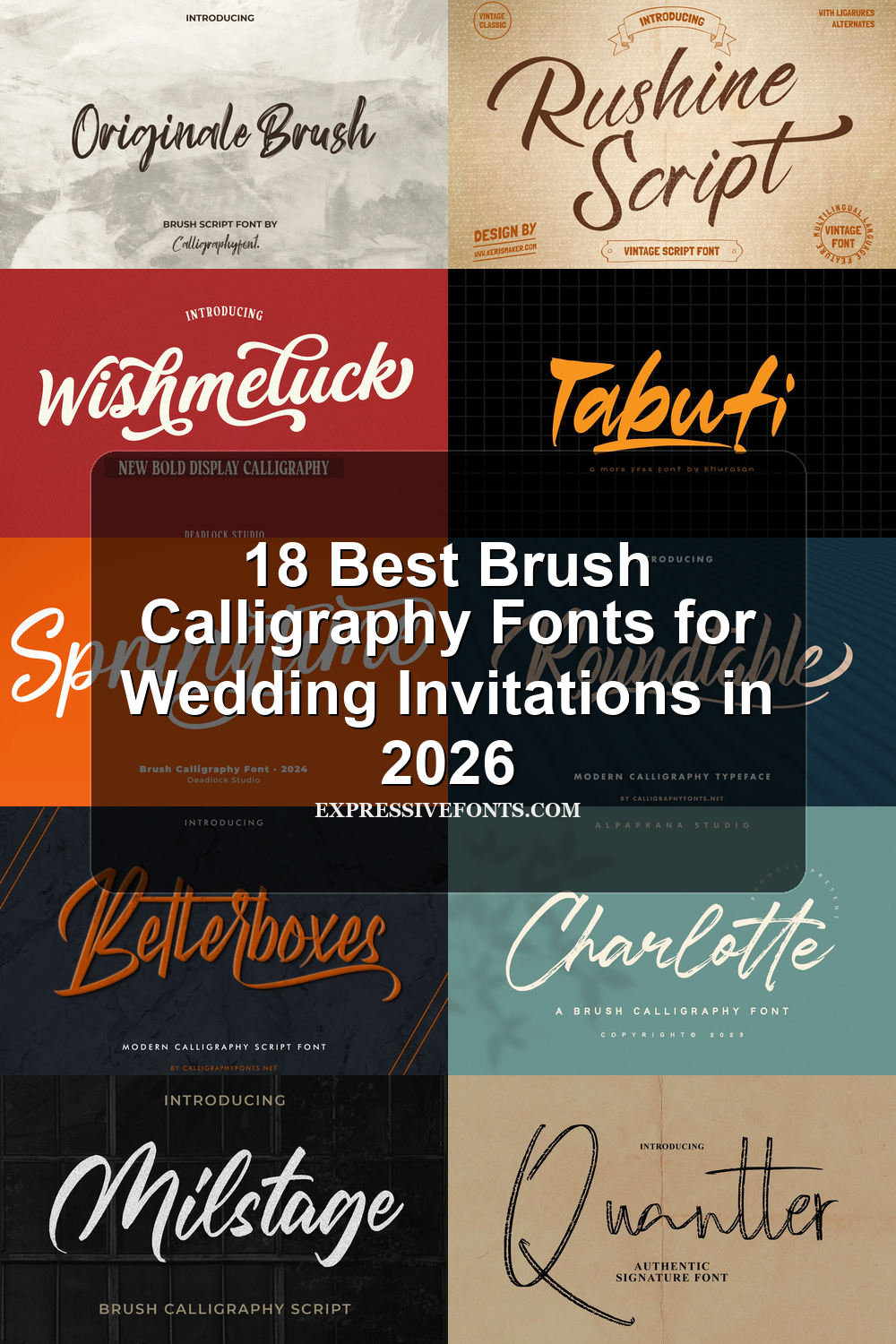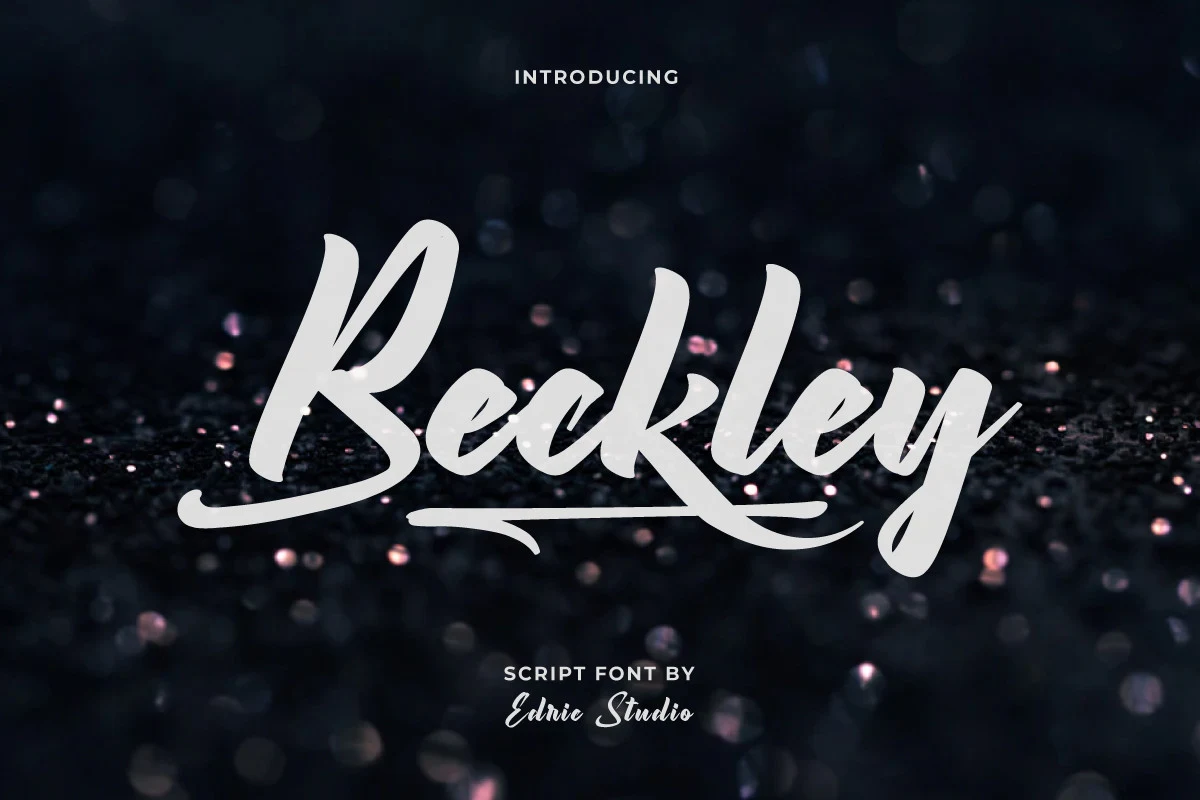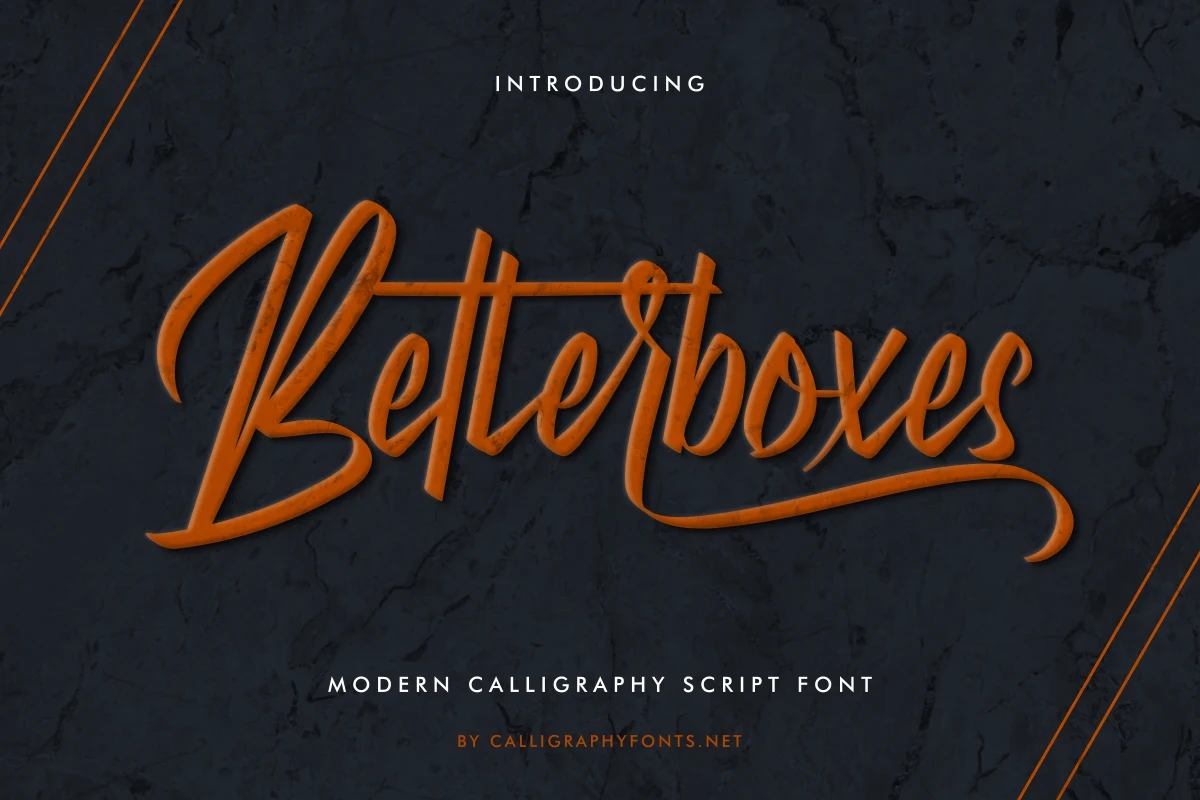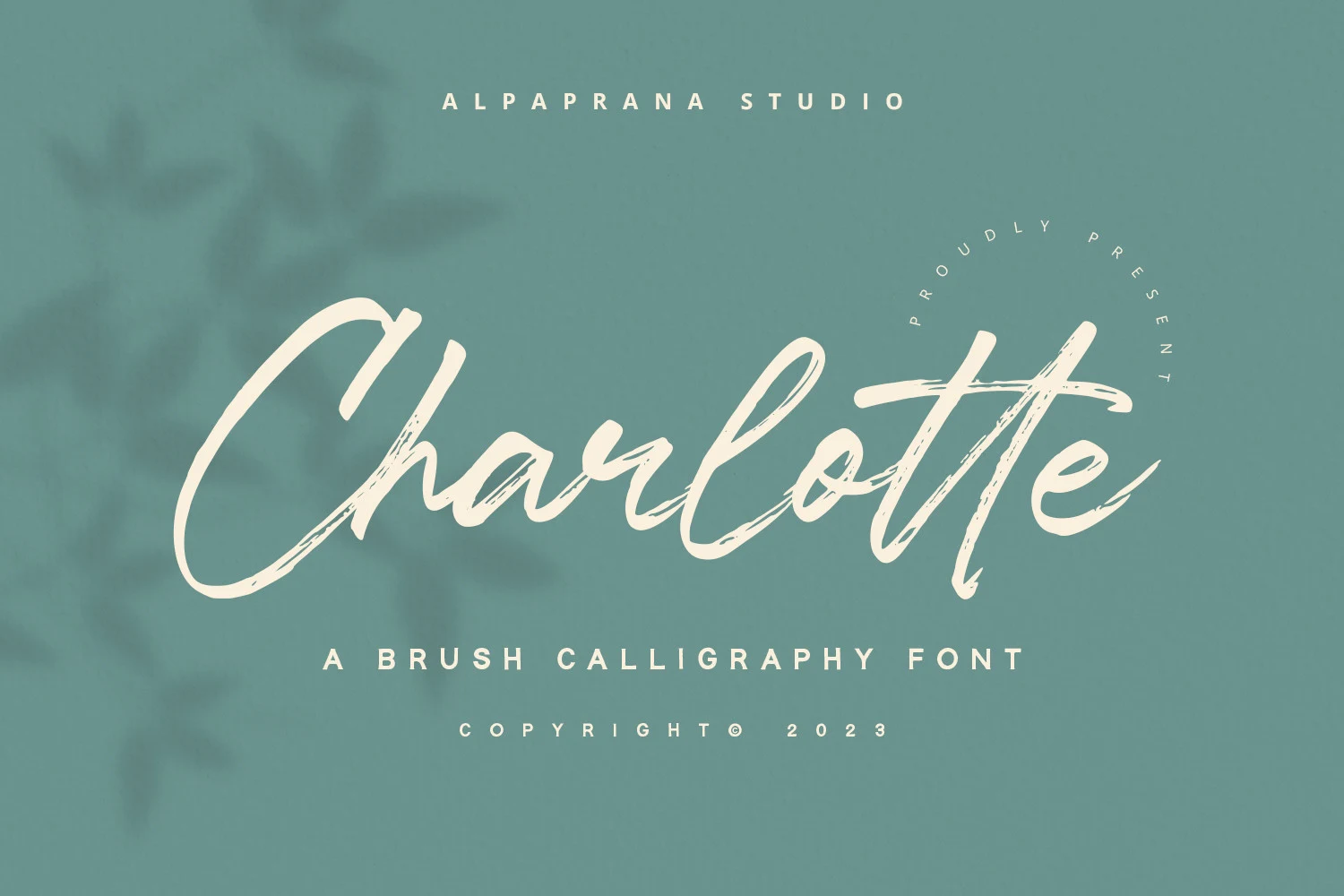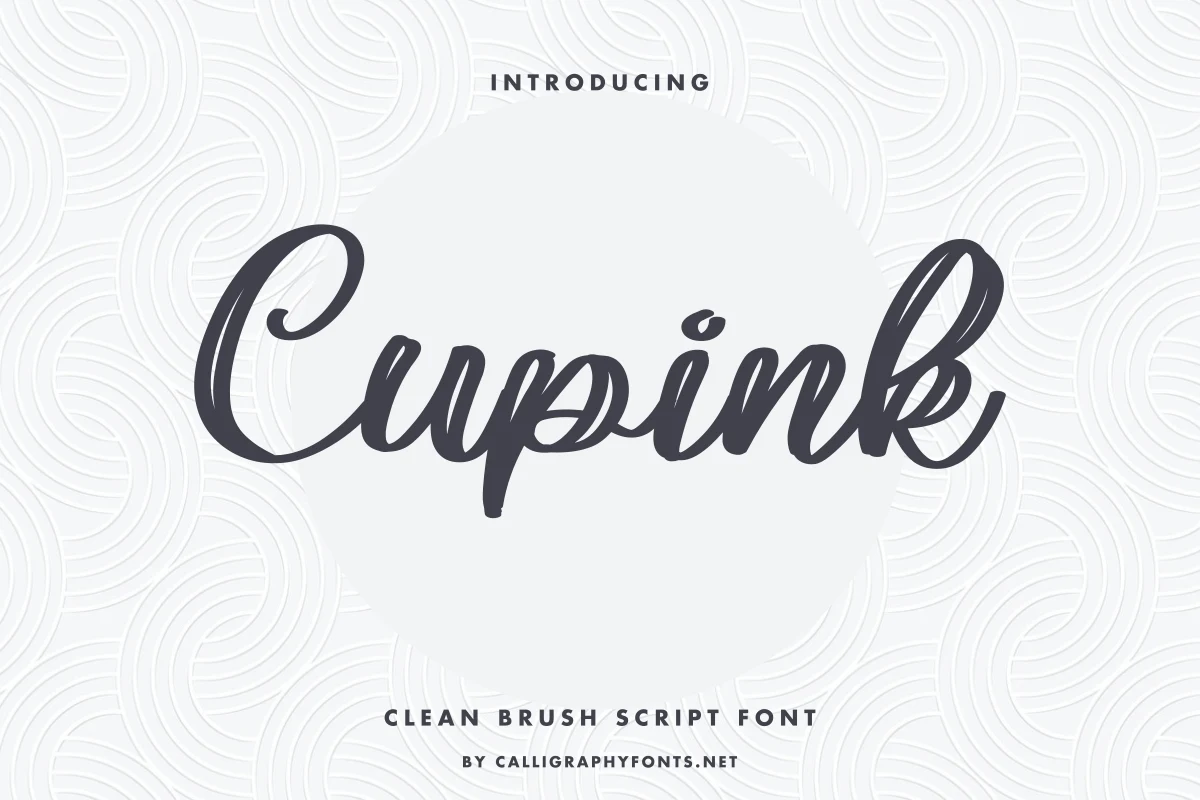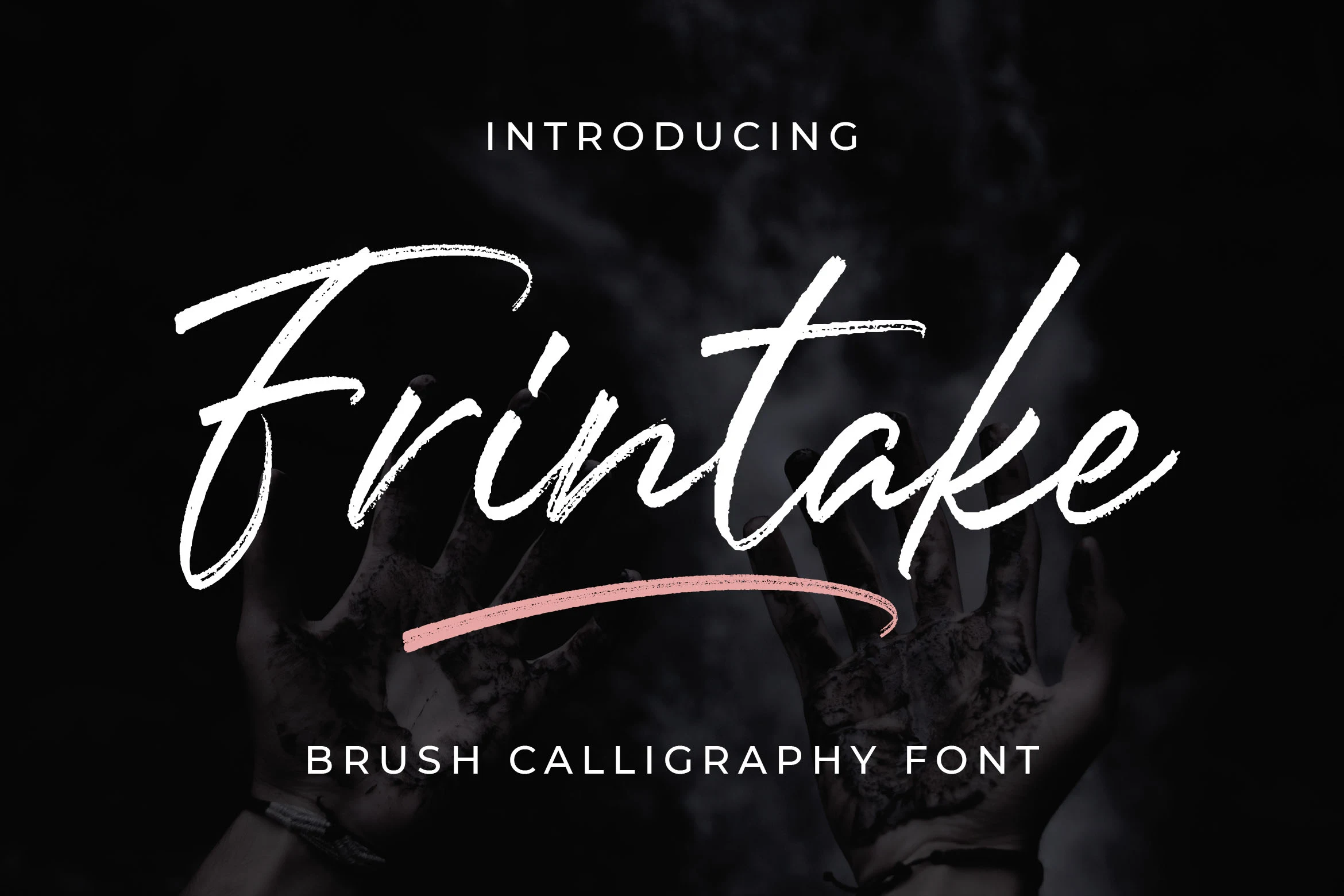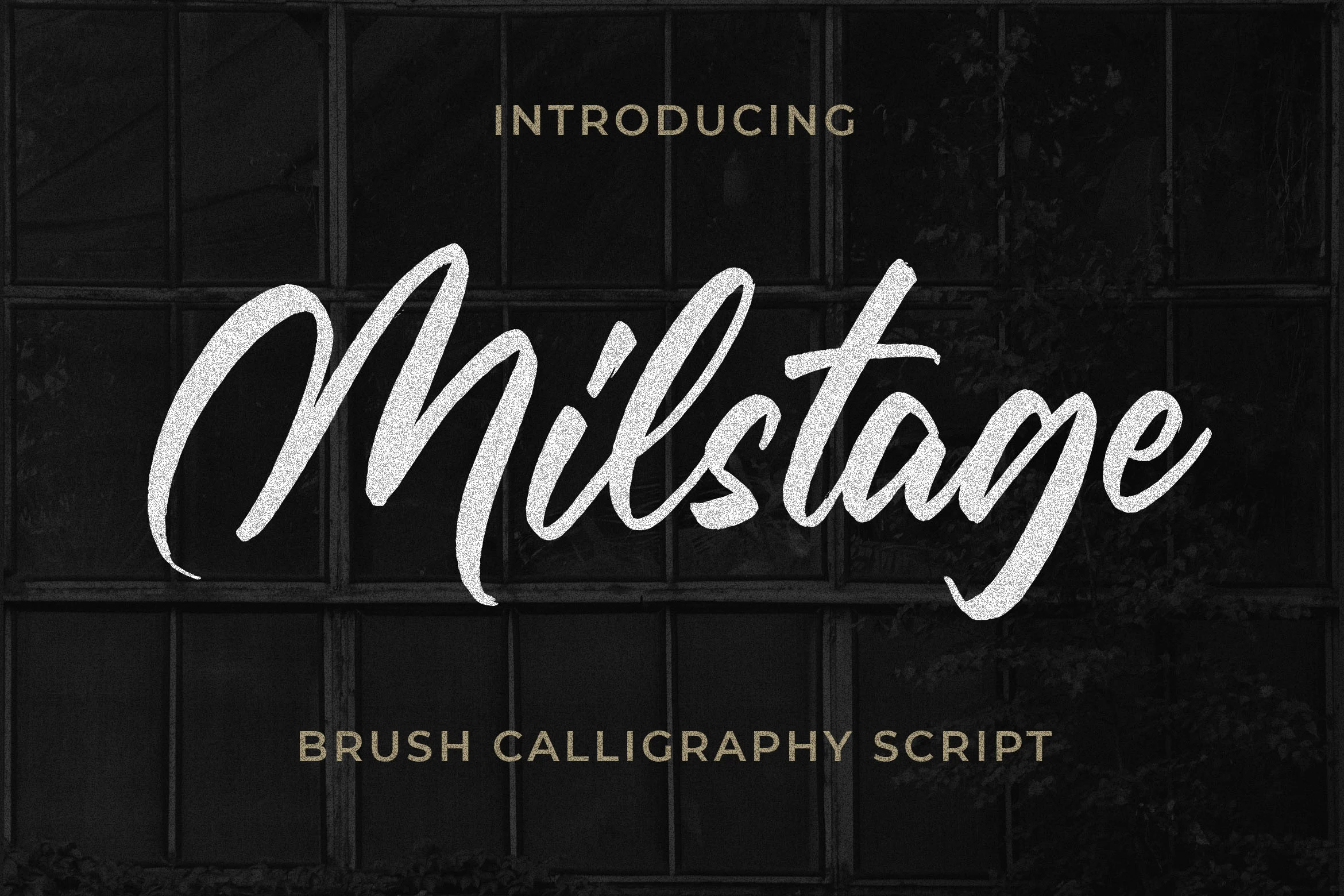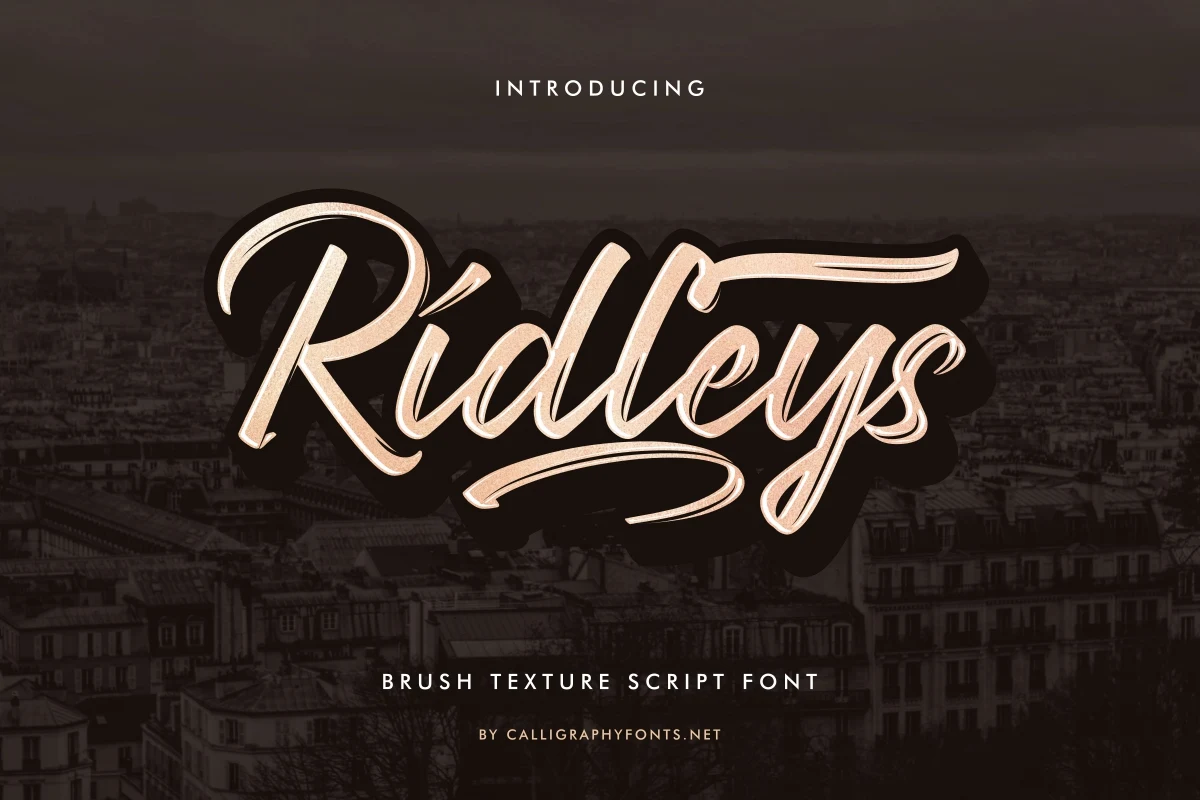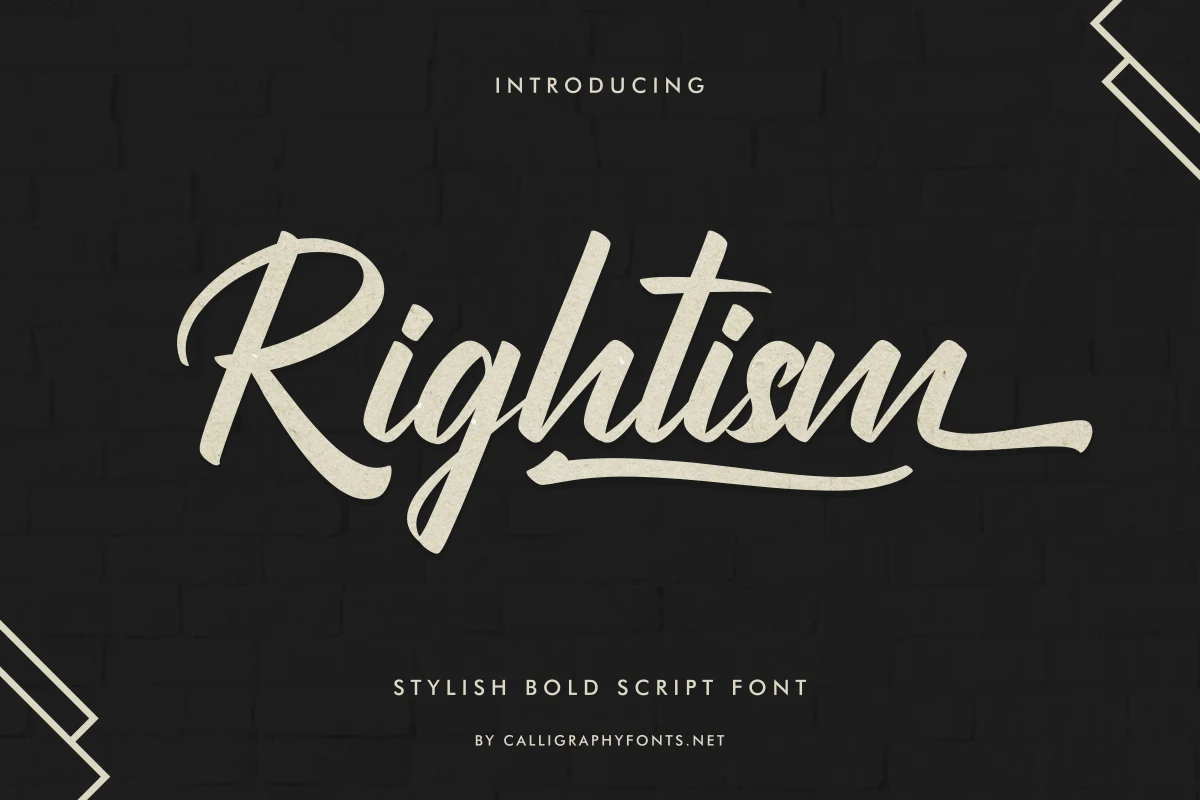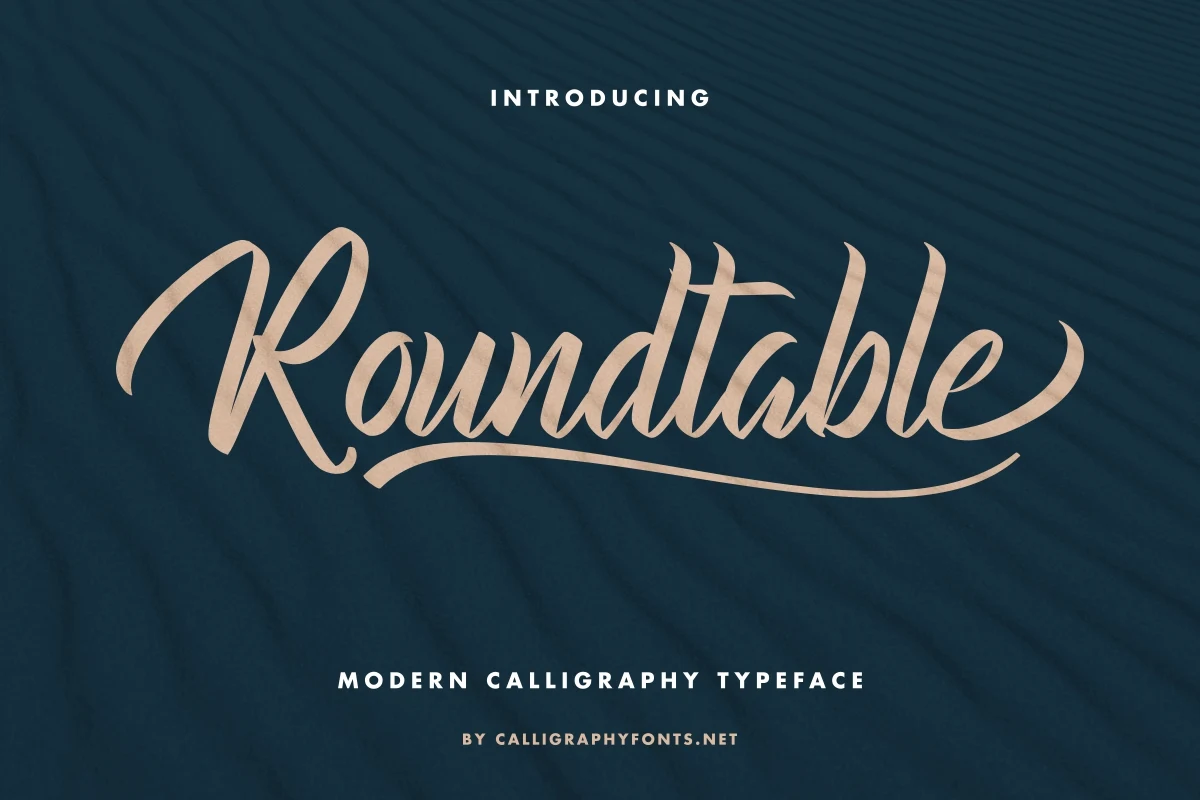
18 Best Brush Calligraphy Fonts for Wedding Invitations in 2026
This collection of Brush Calligraphy Fonts ranges from polished, high-contrast lettering with sweeping flourishes to gritty, dry-brushed scripts and dense, energetic display styles. Together, they suit logos, packaging, invitations, posters, social graphics, headlines, and other short-form designs where visible stroke character matters.
Brush Calligraphy Fonts: Flourished Elegance
These Brush Calligraphy Fonts emphasize controlled slants, dramatic contrast, pointed terminals, and ornamental swashes, giving them a more formal, decorative role than the rougher or heavier groups.
Advantageous Font
Advantageous Font featuring connected cursive letters, high stroke contrast, a strong rightward slant, and a decorative horizontal swash.
Advantageous Font pairs high thick-to-thin contrast with connected, right-leaning curls and a pronounced horizontal swash underline. Its intricate construction is better reserved for short headers, business cards, packaging, and covers than continuous reading.
Roundtable Font
Roundtable Font displaying connected, high-contrast script letterforms with flowing swashes and a pronounced slant.
Roundtable Font separates itself with pointed pen-style terminals, flowing connected letters, and pronounced flourishes rather than rounded endings. Its high contrast works well for large branding, signage, and business cards, while small applications quickly become difficult to decipher.
Ovelyned Font
Ovelyned Font features connected high-contrast calligraphic letters with a rightward slant, sweeping swashes, and decorative star accents.
Ovelyned Font suits invitations and packaging when you want Brush Calligraphy Fonts with a formal, decorative finish. Dramatic contrast, sweeping swashes, and star accents add detail to large marks, logos, and social graphics, but restrict comfortable small-scale reading.
Artemil Font
Artemil Font featuring connected cursive strokes, high contrast, and sweeping ornamental flourishes.
Artemil Font tempers ornate, right-slanting connections with a stable baseline, giving its flowing letterforms more control than an irregular script. Pronounced swashes still call for display sizing, making it a strong choice for logos, invitations, packaging, and social graphics.
Betterboxes Font
Betterboxes Font features high-contrast connected cursive letters, a pronounced rightward slant, and extended decorative swashes.
Betterboxes Font makes extended swashes on lowercase final characters its defining feature. High-contrast connected joins reward large logos, branding, headlines, and invitations, but the long endings and narrow details lose clarity quickly when the lettering is reduced.
Textured Brush Scripts
Grain, distressed edges, and painted irregularity connect this group, while steadier or monolinear constructions distinguish it from the polished flourishes and denser weight of the other categories.
Charlotte Font
Charlotte Font displayed as a connected, right-leaning brush script with dry-textured edges and high stroke contrast.
Charlotte Font brings dry-brush edges to a high-contrast, connected script with a forward slant. The painted texture gives logos and branding tangible surface character, but generous sizing is important for posters, packaging, and other display applications.
Milstage Font
Milstage Font features connected, right-leaning brush lettering with textured strokes and extended swashes.
For Brush Calligraphy Fonts with layered motion, Milstage Font combines grain inside high-contrast strokes with extended entry and exit swashes. The connected forms need room to breathe, so they read most clearly in large logos, quotes, posters, and prominent branding.
Frintake Font
Frintake Font is a connected brush script with textured strokes, high contrast, a rightward slant, and a sweeping swash underline.
Frintake Font combines gritty brush texture with a sweeping underline for an organic, hand-painted impression. Because the grain reduces compact-size clarity, use it for logos, branding, headlines, and other large display text rather than detailed copy.
Ridleys Font
Ridleys Font displaying connected, right-slanted brush script letterforms with high contrast and sweeping flourishes.
Ridleys Font uses regular-width connected forms and a stable rhythm, then roughens them with grainy texture and broad flourishes. It supports short branding phrases and headlines, but the textured edges and underlines need generous display sizing to remain clear.
Originale Brush Font
Originale Brush Font shown as textured, connected brush script lettering with a rightward slant and varied stroke weight.
How to Choose the Right Font
Choose Brush Calligraphy Fonts by matching construction to scale: use high-contrast flourishes for invitations and logos, textured or distressed edges for packaging and titles, and heavier, steadier scripts for energetic headlines. Test every option at its final size, since joins, swashes, grain, and irregular baselines can quickly reduce readability.